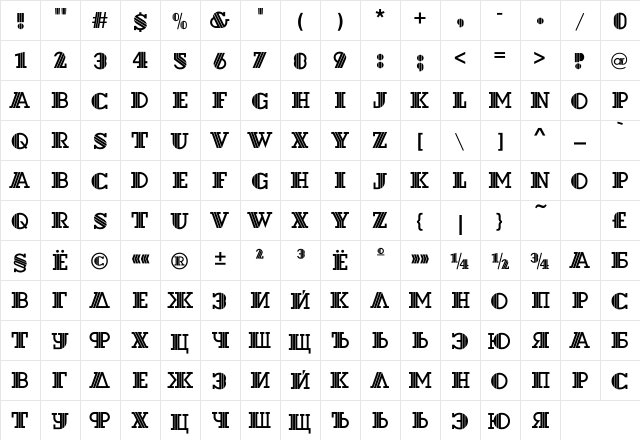
DextorC Regular
Design Context for DextorC Typeface
DextorC is a composed and adaptable typeface that performs quietly and consistently across a wide range of design contexts.